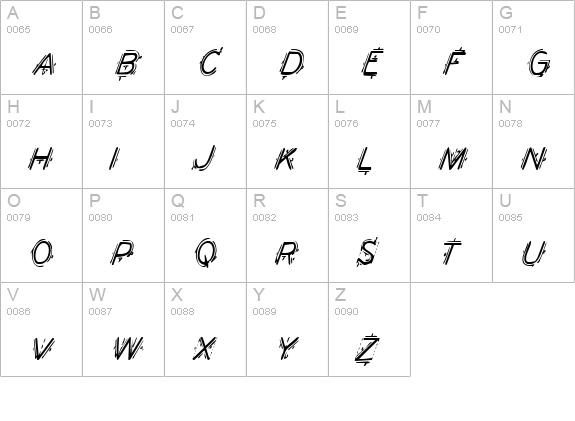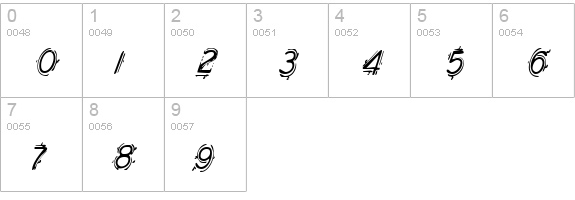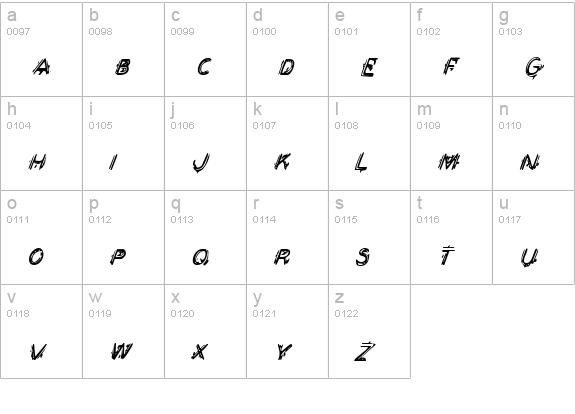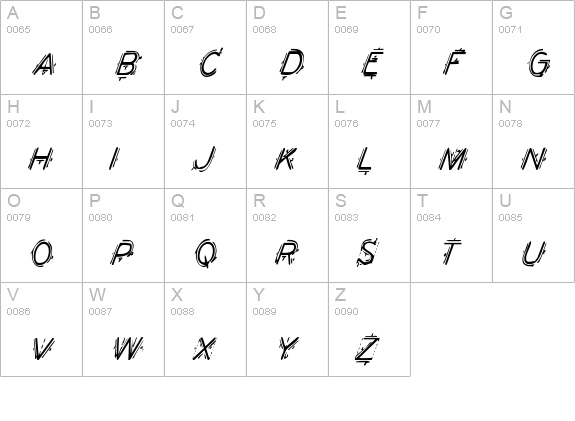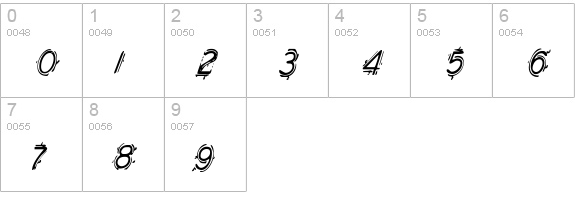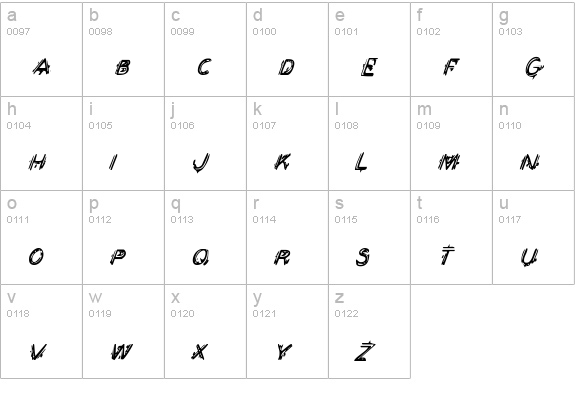
Berserker Condensed Italic is a distinctive, condensed-width, italic variant in the Berserker typeface family \xE2\x80\x94 well suited to design and typography projects.
Berserker Condensed Italic is a bold and dynamic font that exudes power and strength. Its slanted and condensed design gives it a fierce and intense appearance, making it perfect for projects that require a strong and impactful visual presence. The italicized style adds a touch of flair and sophistication to the overall look, making Berserker Condensed Italic a versatile choice for a wide range of design applications. This font is not only visually striking but also incredibly versatile, making it suitable for various design projects such as branding, headlines, posters, and more. Whether you want to convey a sense of boldness and energy or add a touch of modernity to your designs, Berserker Condensed Italic is sure to make a statement. The best part? Berserker Condensed Italic is available for free download at FontsMarket.com, allowing you to access this powerful and stylish font without breaking the bank. Don't miss out on the opportunity to enhance your designs with this eye-catching typeface – download Berserker Condensed Italic today and unleash your creativity!